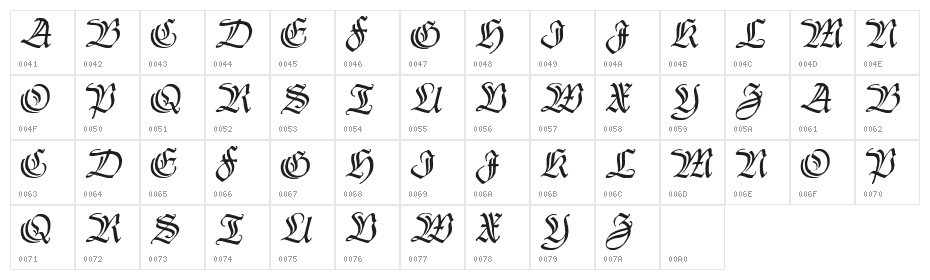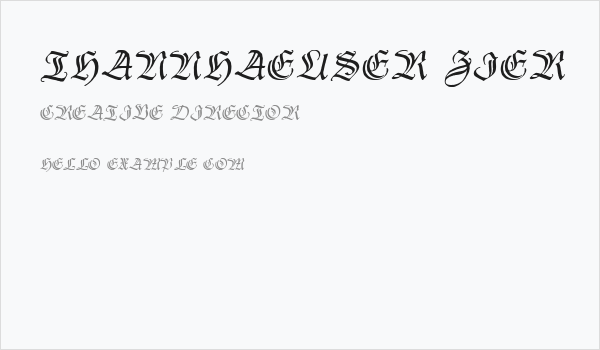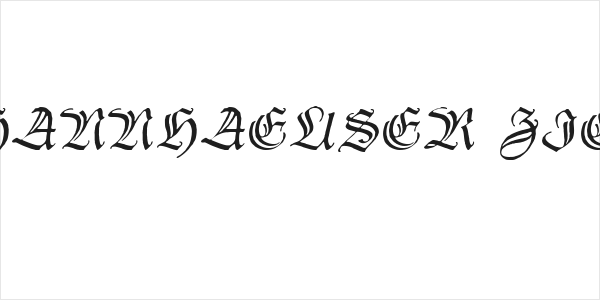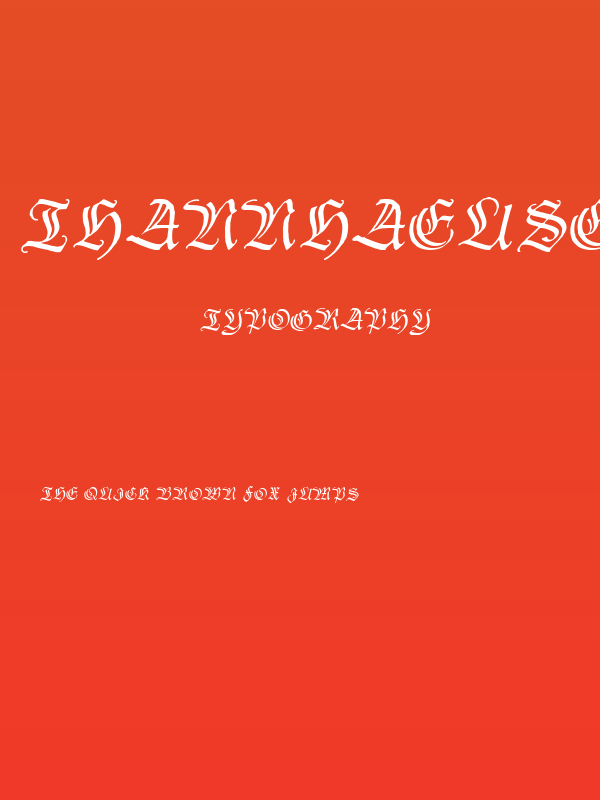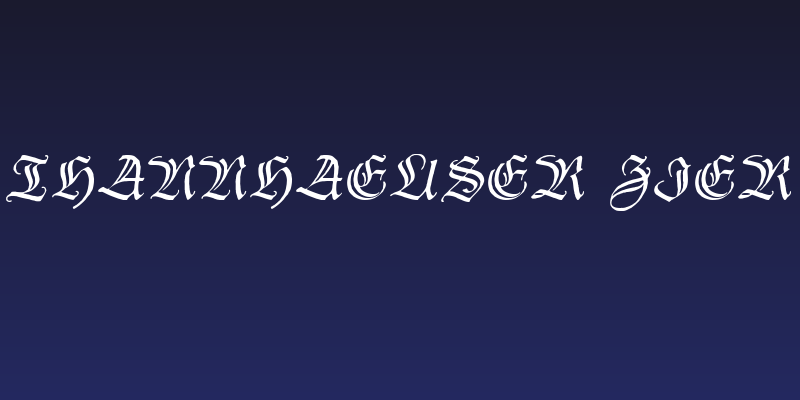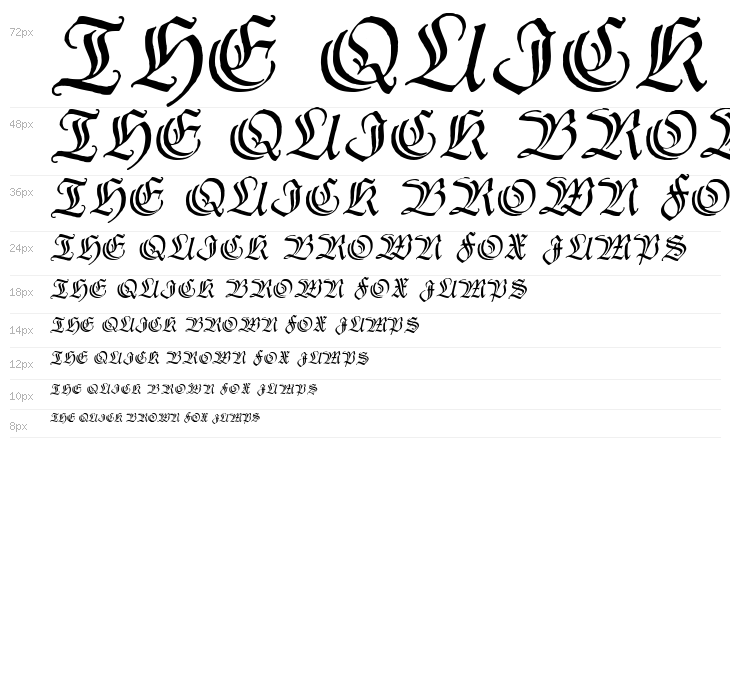
Thannhaeuser Zier Font
Thannhaeuser Zier Description
This font is a classic example of Blackletter style, characterized by its ornate and intricate letterforms. The characters exhibit sharp, angular lines with dramatic flourishes, embodying a historical and traditional aesthetic. The uppercase letters are particularly elaborate, with extended strokes and decorative elements that enhance their visual impact. The lowercase letters maintain the same level of detail, ensuring consistency throughout the typeface. The numerals and special characters are equally stylized, fitting seamlessly with the overall design. This font exudes a sense of formality and elegance, making it suitable for projects that require a touch of sophistication and historical reference.